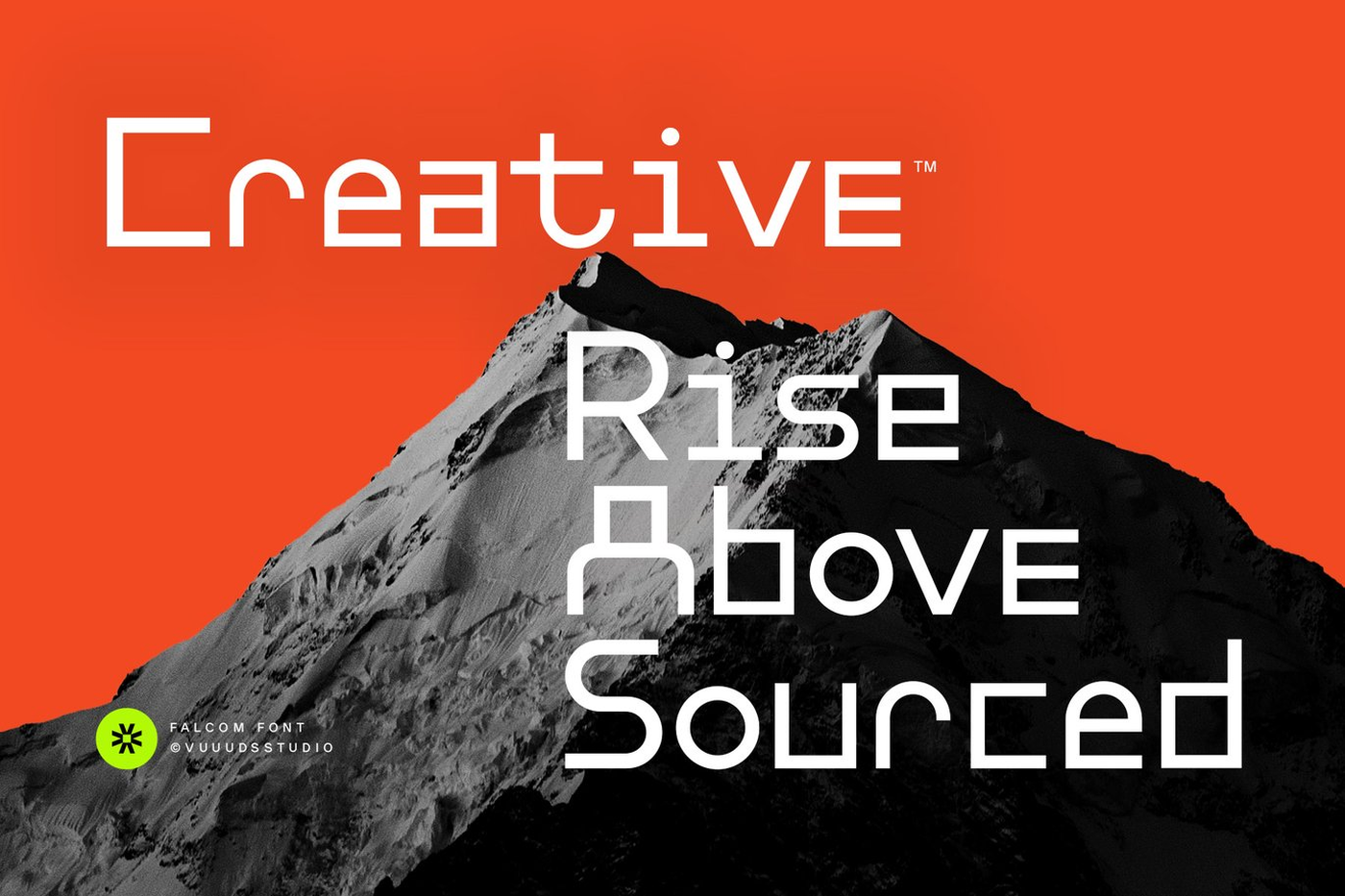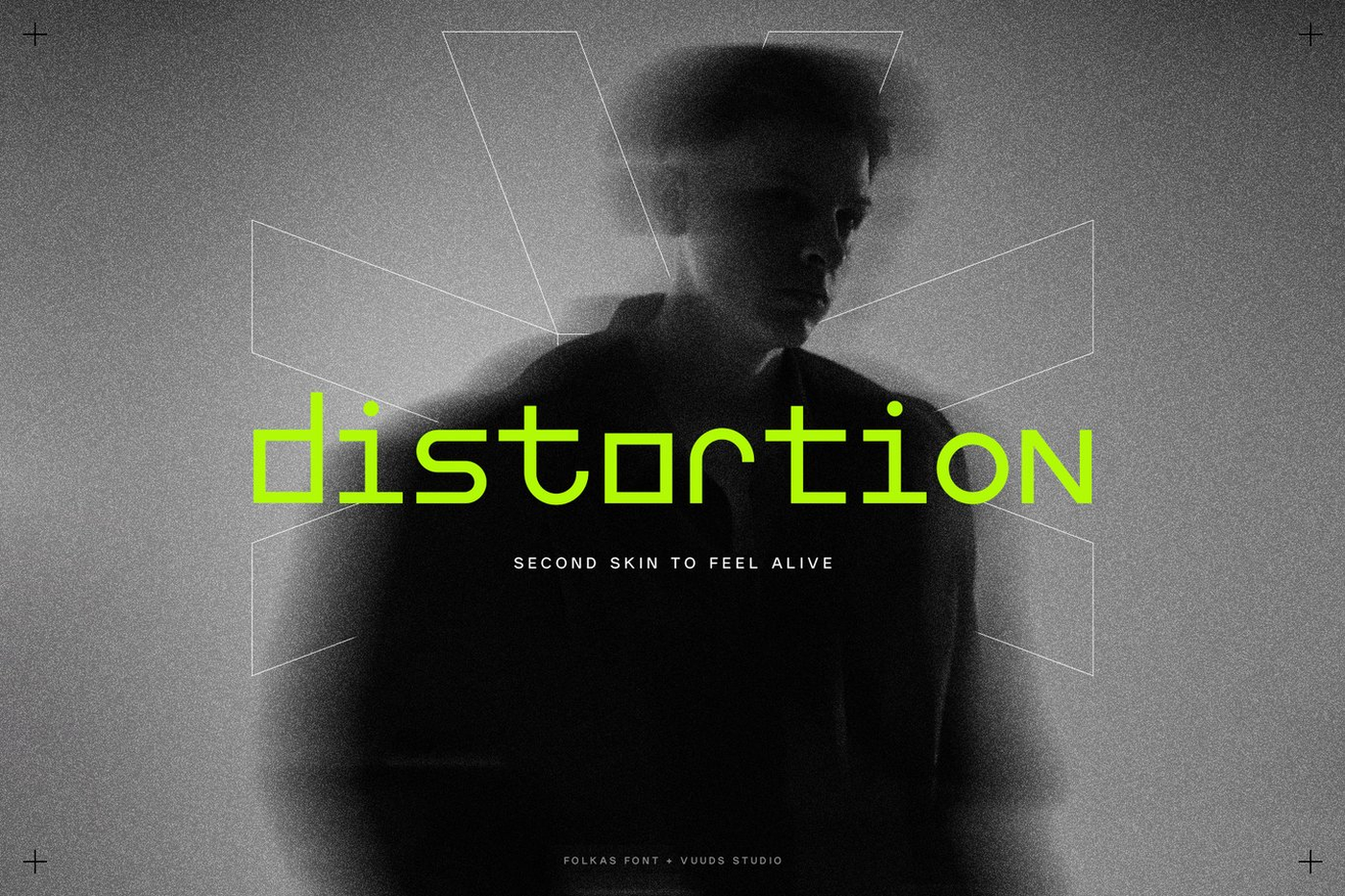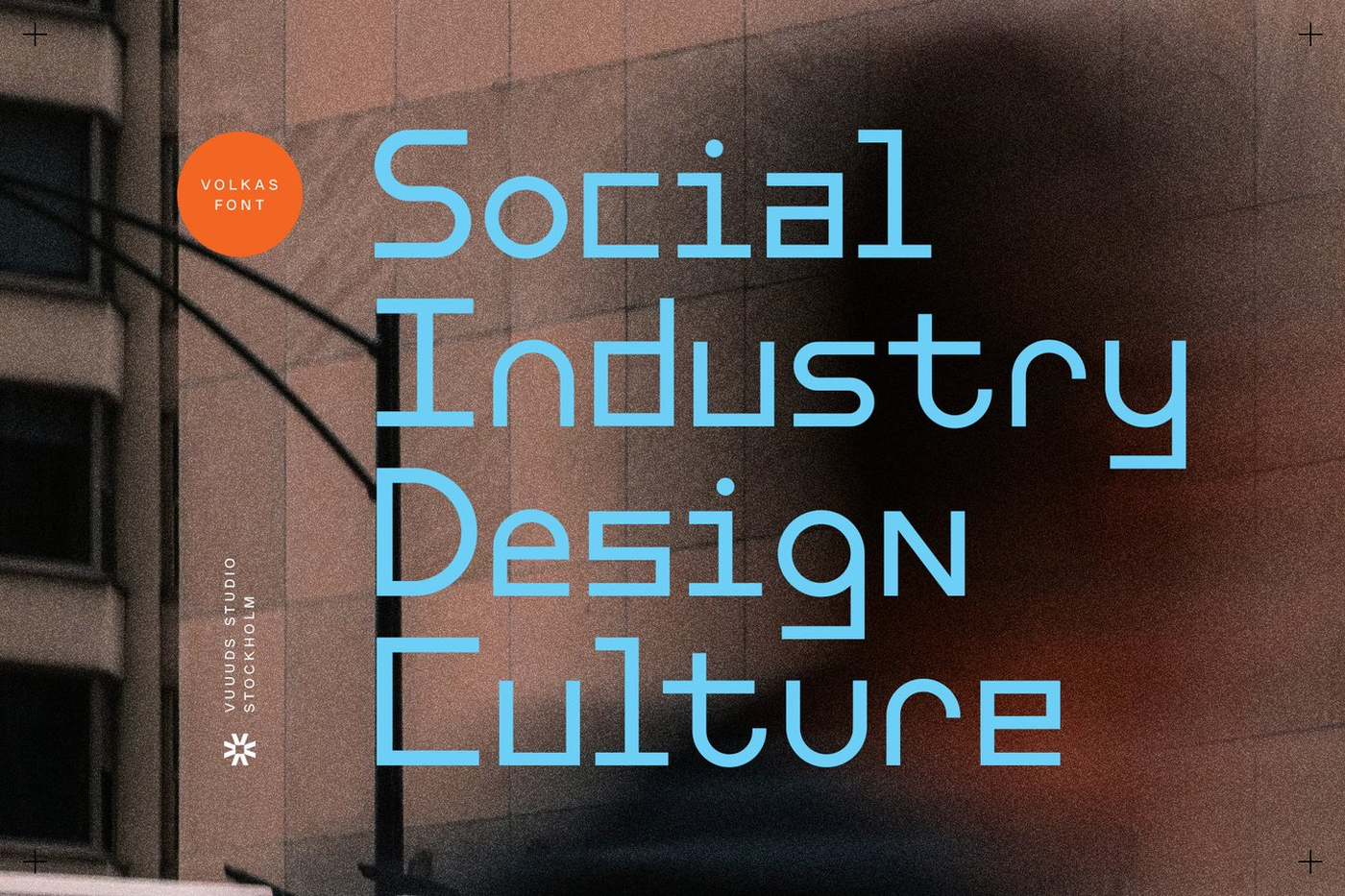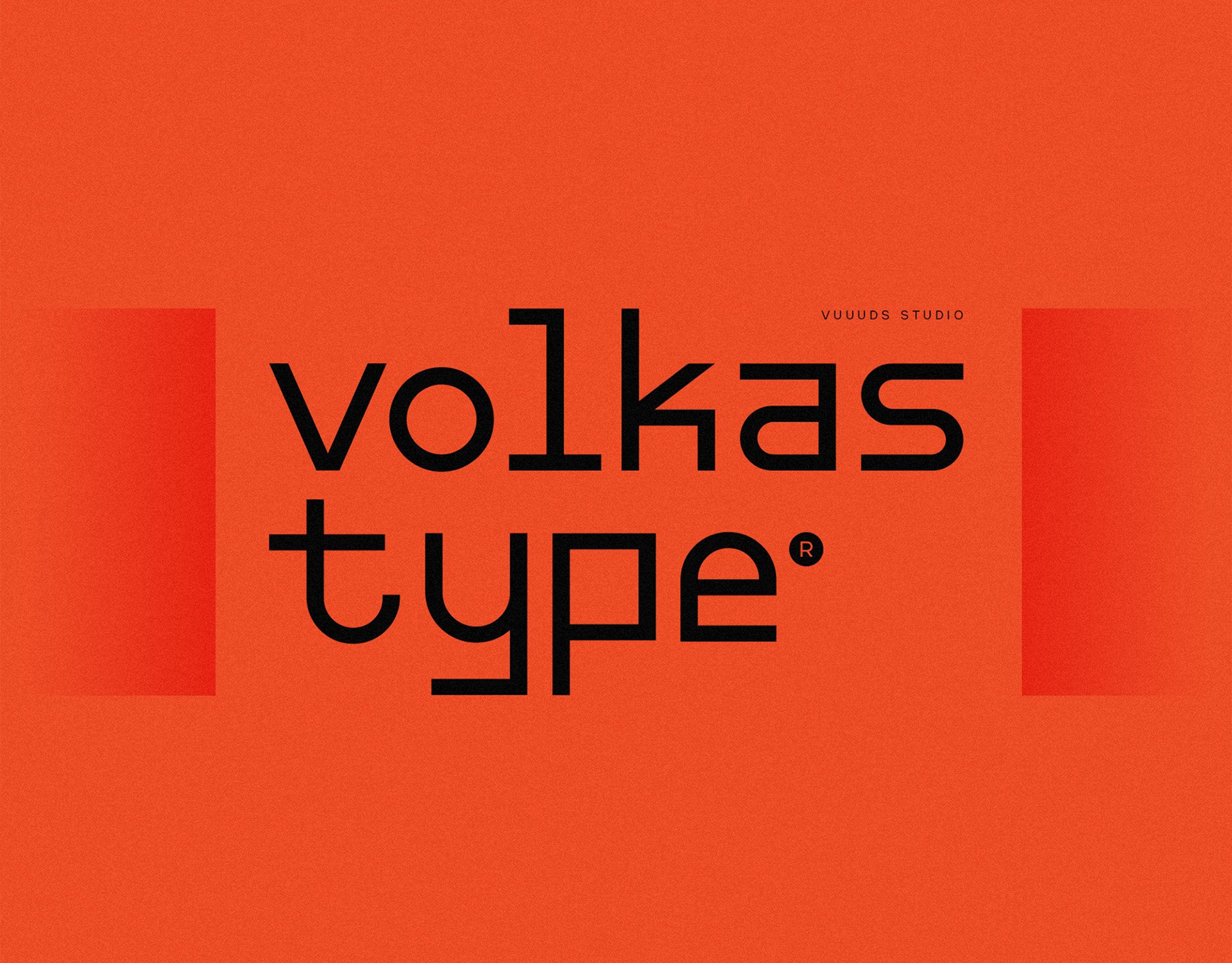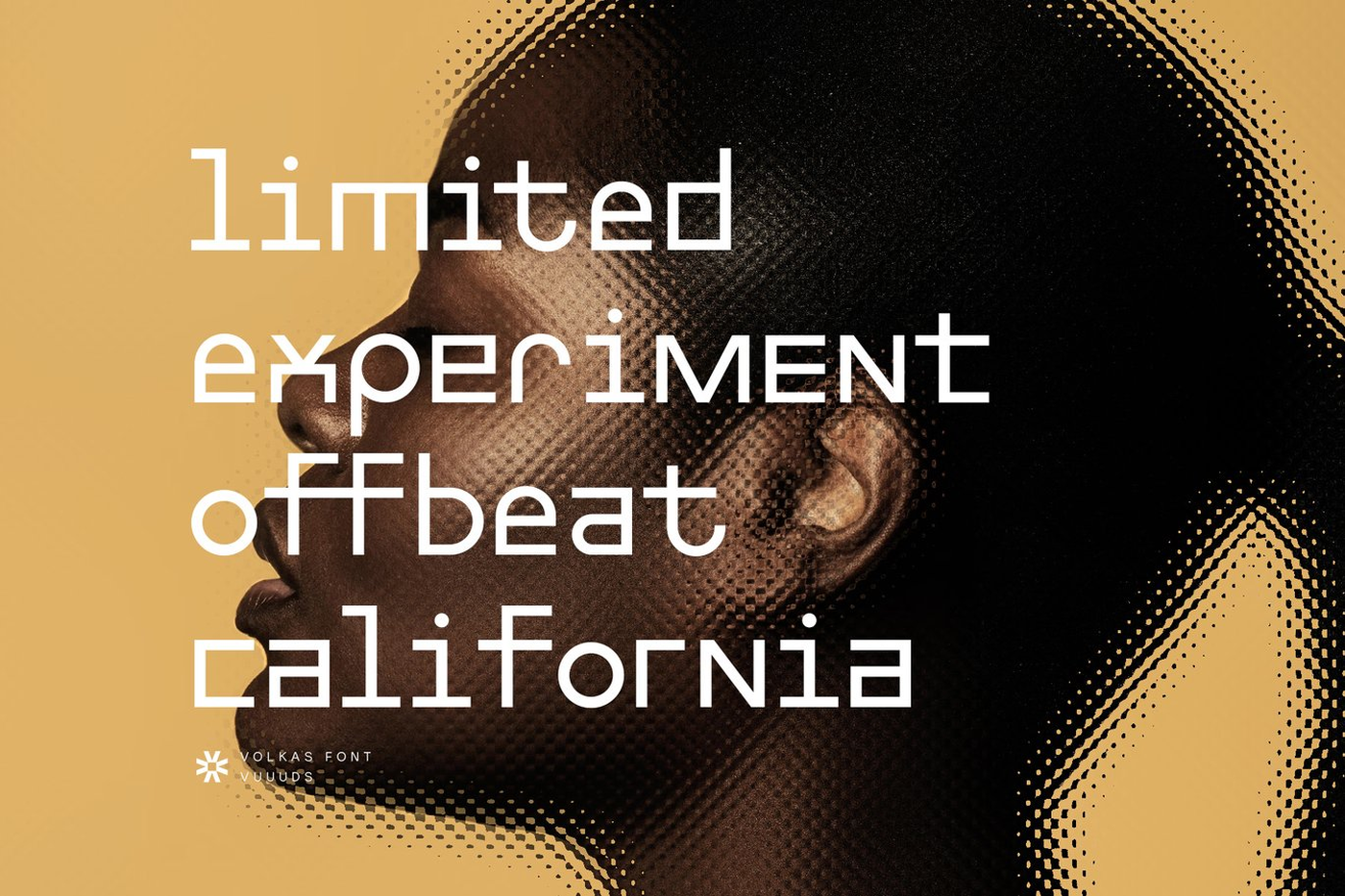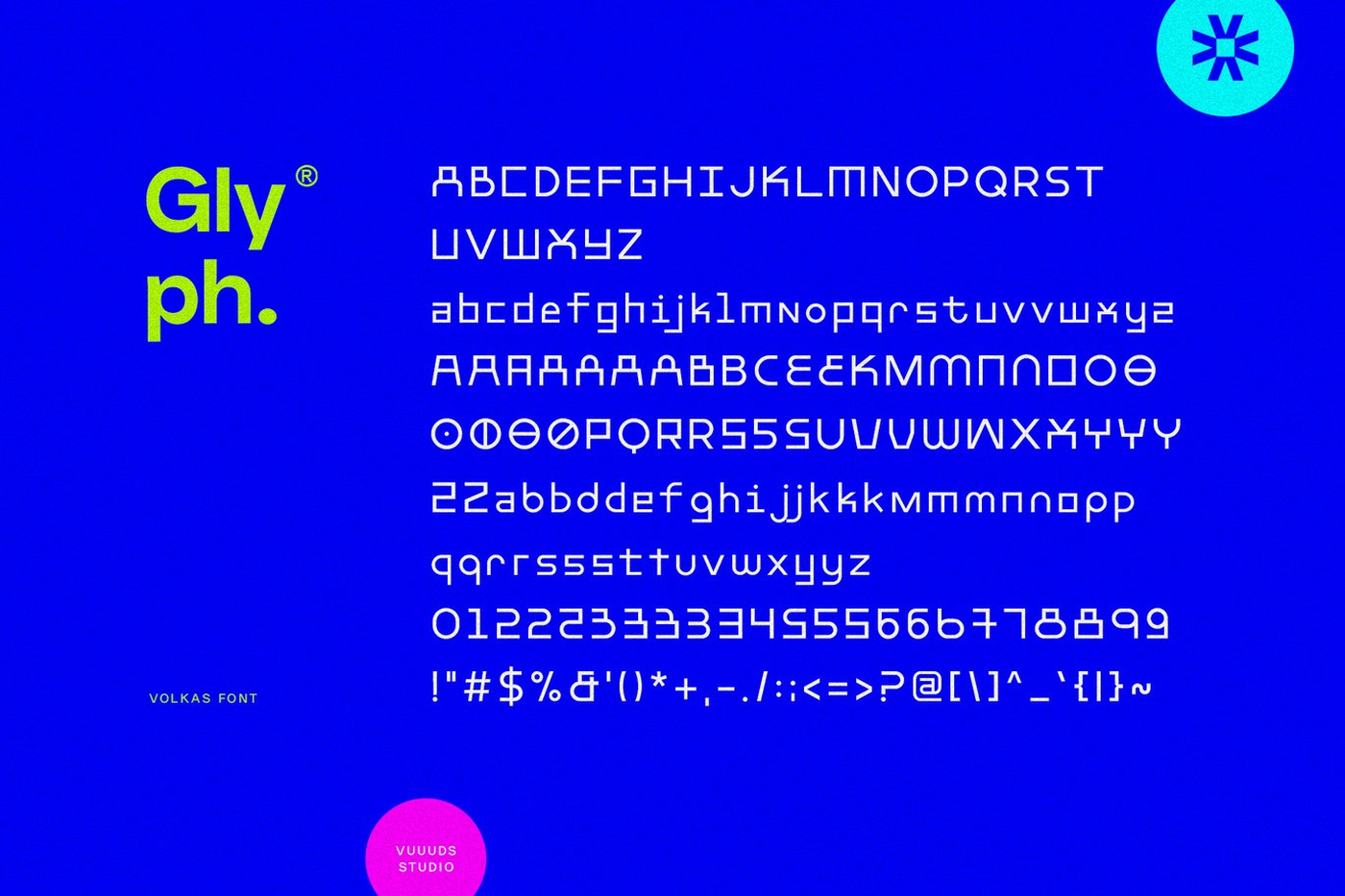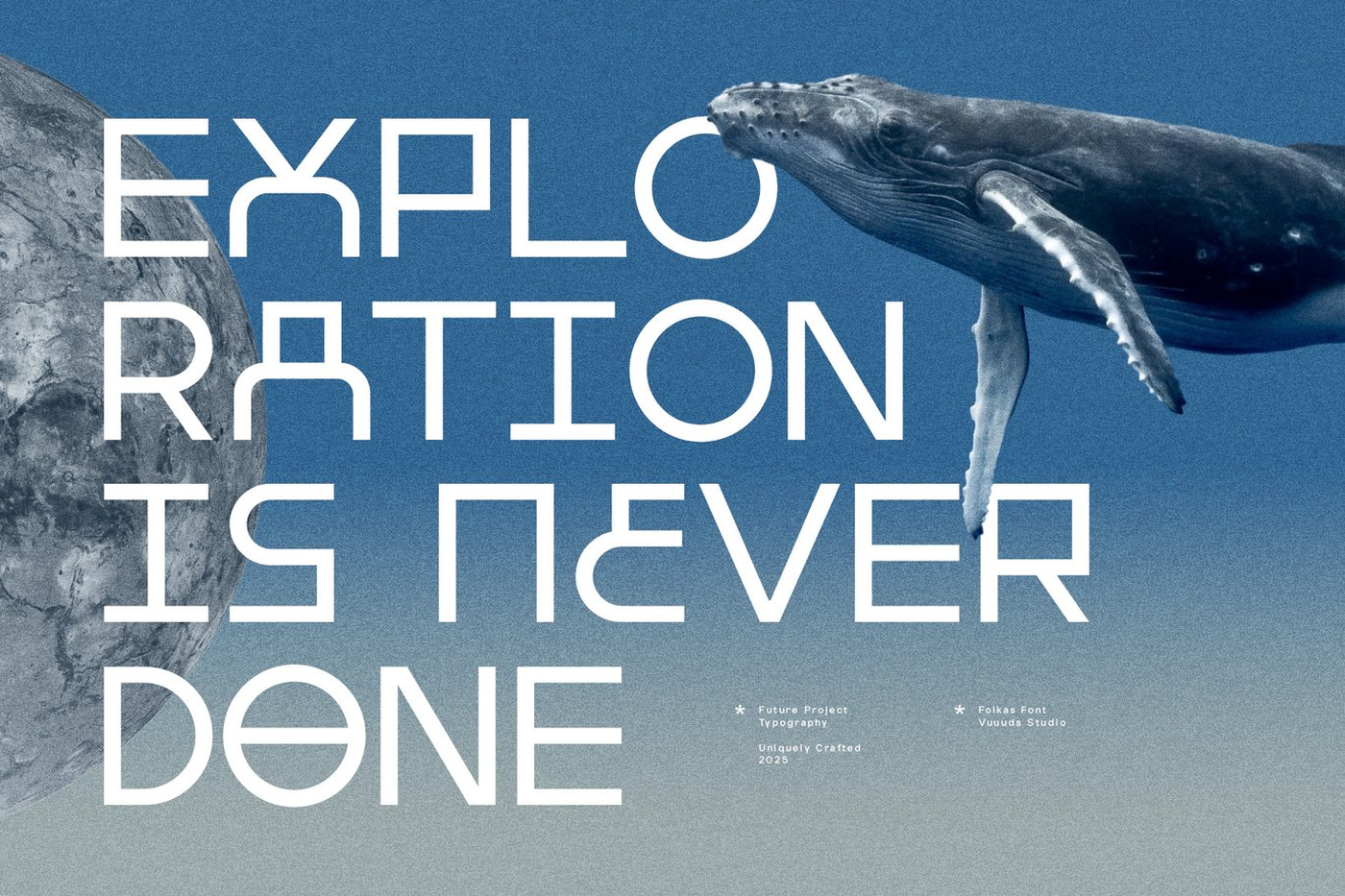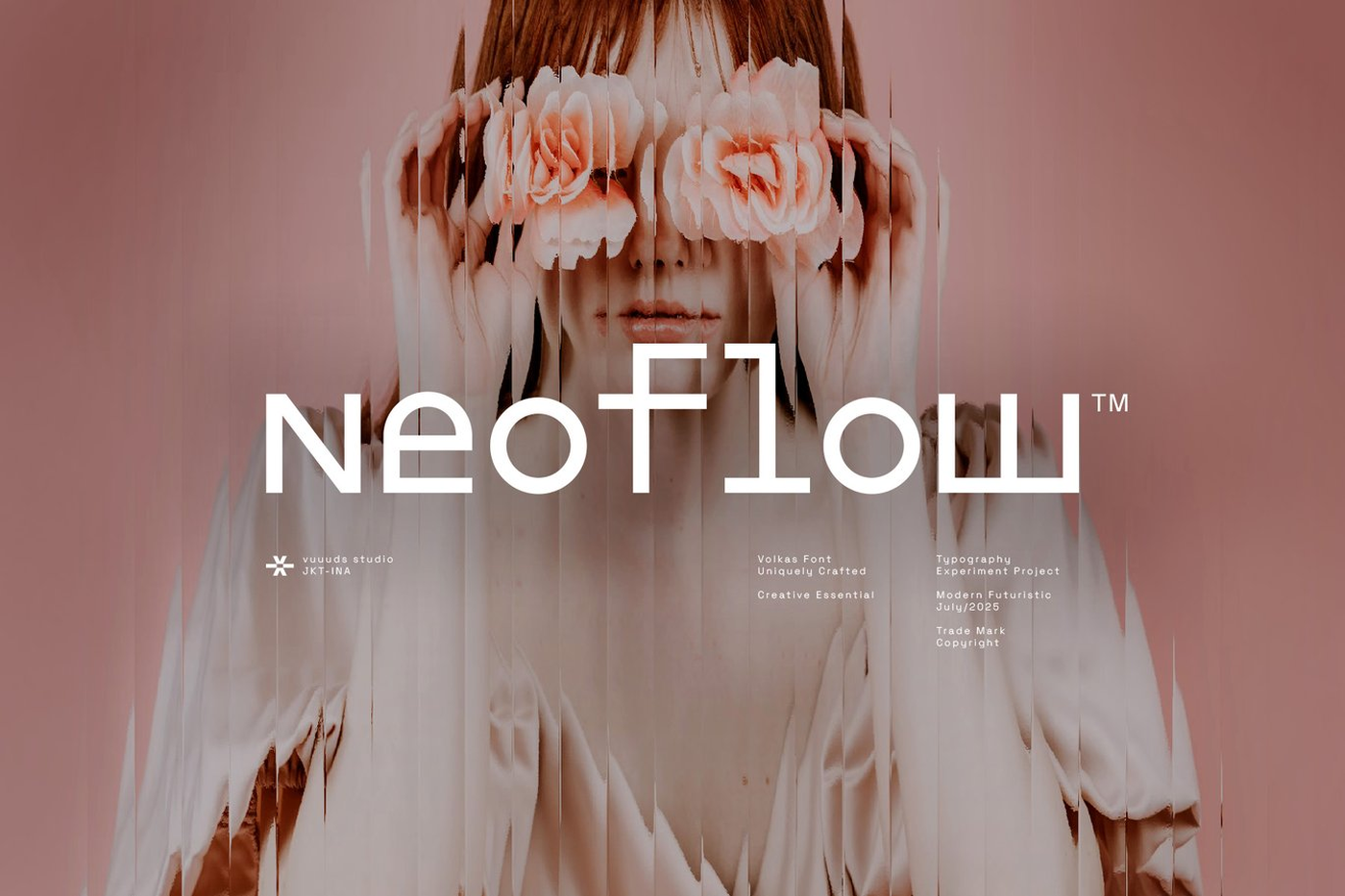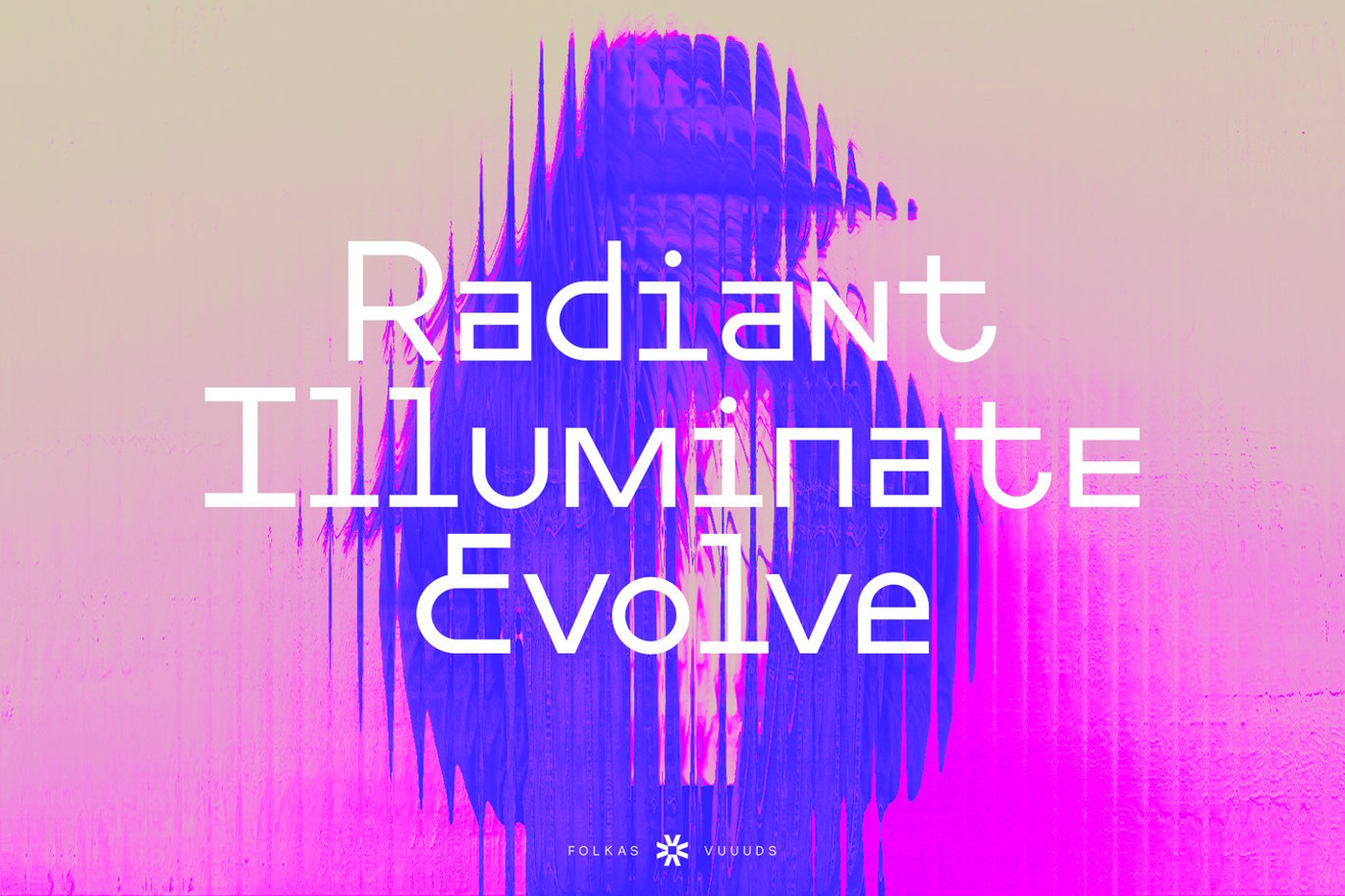
Volkas - Modern Sans Serif Font
Volkas is modern sans serif font, every single letters have been uniquely crafted. This font including beautiful alternate glyph.